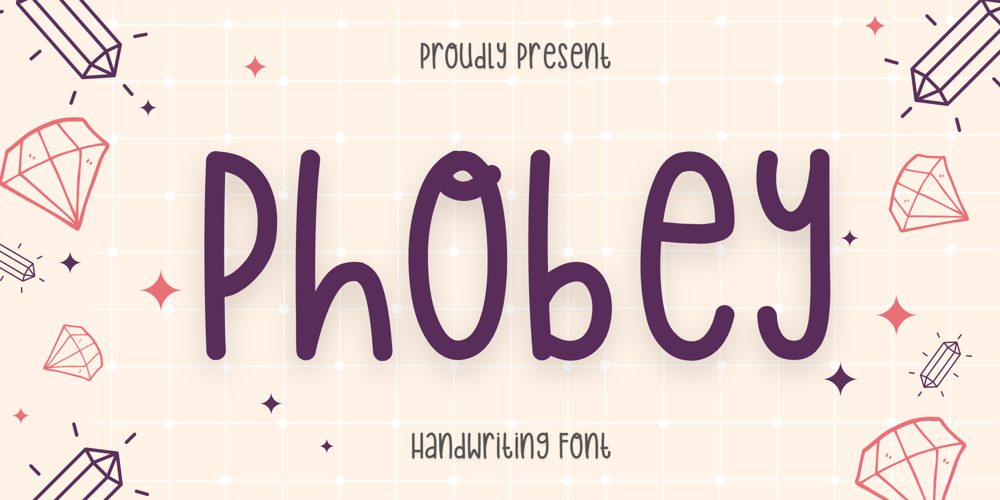
Phobey Font Family was designed by Nur Aiysah Amalia and published by Aisyah. Phobey contains 1 styles and family package options. Phobey is a simple and dainty handwritten font. Its natural and unique style makes it incredibly fitting to a large pool of designs. Use this font for your designs and explore its endless possibilities.